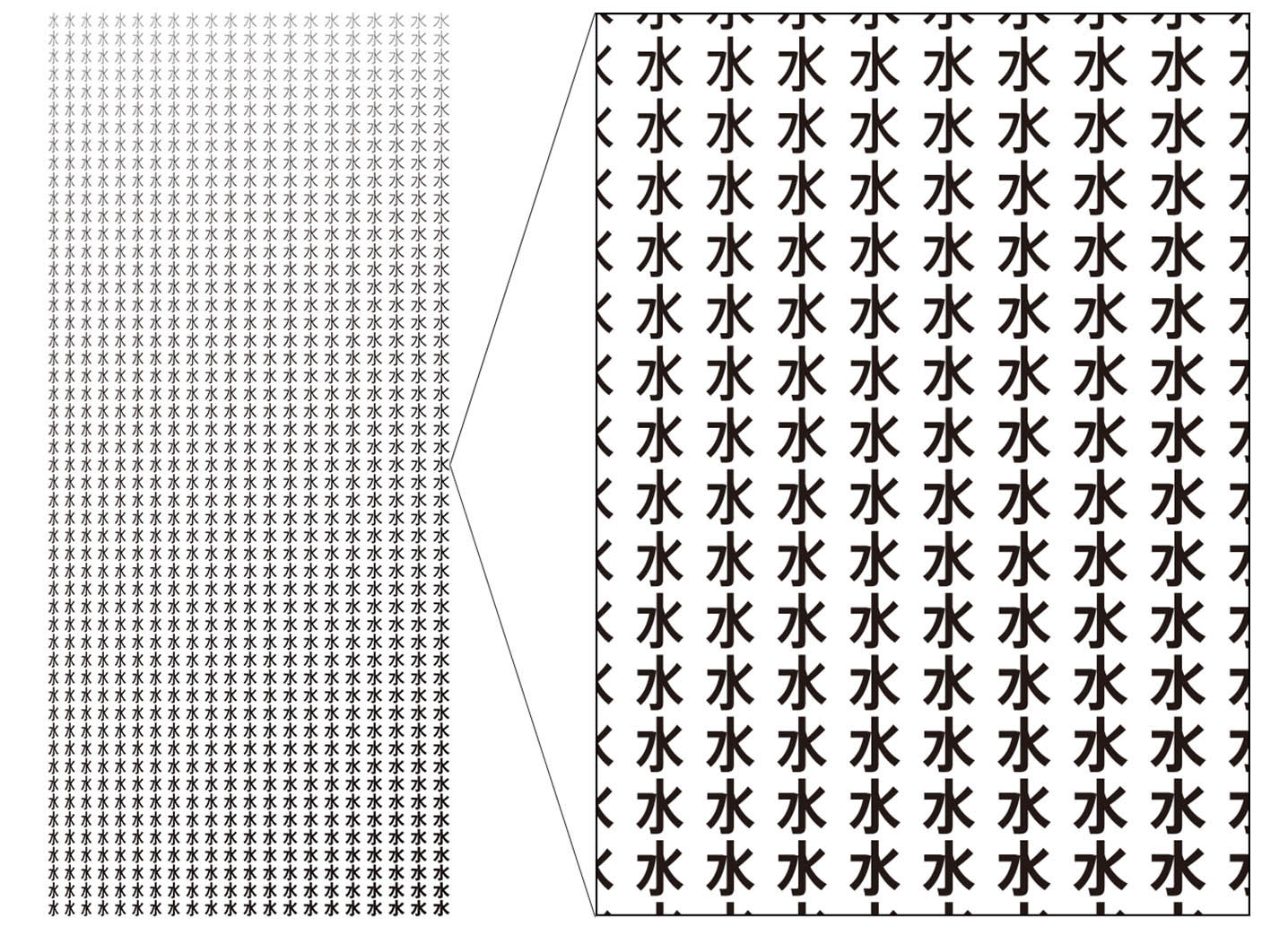
Why AXIS Font works as a corporate font, too
Transform values, arrange environments, support culture, and be rooted in everyday life.
The shape of Type Project’s aspirations.
From the creation of a magazine-dedicated font for the design publication AXIS Magazine, to the production of FitFont with freely combinable weight and contrast options, to its offerings for the City Font Project and of a range of font experimentation tools, Type Project aims to continue with its original approach to development.
Type that raises the value of objects and of people (2)
Why AXIS Font works as a corporate font, too
When AXIS Font came out in 2001, in part due to the fact that it was a media-exclusive font, it had a unique presence that could not be found in other fonts. One couldn’t say for sure whether or not it even resembled other existing typefaces, and it resisted categorization with any other lineage of typefaces. Isao Suzuki’s way of thinking about type design shows why this was the case. “I’ve always felt this way, but I think that one should just start in a natural way, and that it’s good to bring out in a typeface the things one is living and seeing now, the air one breathes, and one’s sense of the spirit of the era one is living in. So, with AXIS Font, it was always important to me that it felt right, and that to my eye it worked in a comfortable way, without any sense of something being out of place. If I can express the ‘contemporary’, and that can be something that connects to environments and visual atmospheres five years from now, or even ten years from now… I have such hopes whenever I am creating a new typeface.”
In AXIS Font, Suzuki gave expression to his sense of the spirit of the times. It is interesting to note that AXIS Font is frequently adopted as a corporate font. One might think that since this font was designed for the specific medium of AXIS Magazine, everything one does with it will end up looking like that magazine, regardless of the medium one is working in. But when looking at actual examples of AXIS Font in use, one is struck by how easily and naturally it seems to fit into each situation. Suzuki’s typeface design philosophy, of having a sense of transparency and neutralness and looking ahead five or ten years in the future, would seem to be consistent with the corporate font way of thinking, which is to choose for long-term use. Suzuki offers the following analysis as to why this is so: “Overwhelmingly, in addition to adopting neutralness as a typeface characteristic, companies were using sans-serif fonts as their corporate fonts. And AXIS Font had seven weights, which was a lot for that time. Moreover, with Condensed and Compressed, we had three character widths available, which is probably what led to AXIS Font being a popular choice for situations with Japanese text used in combination with Latin characters.”
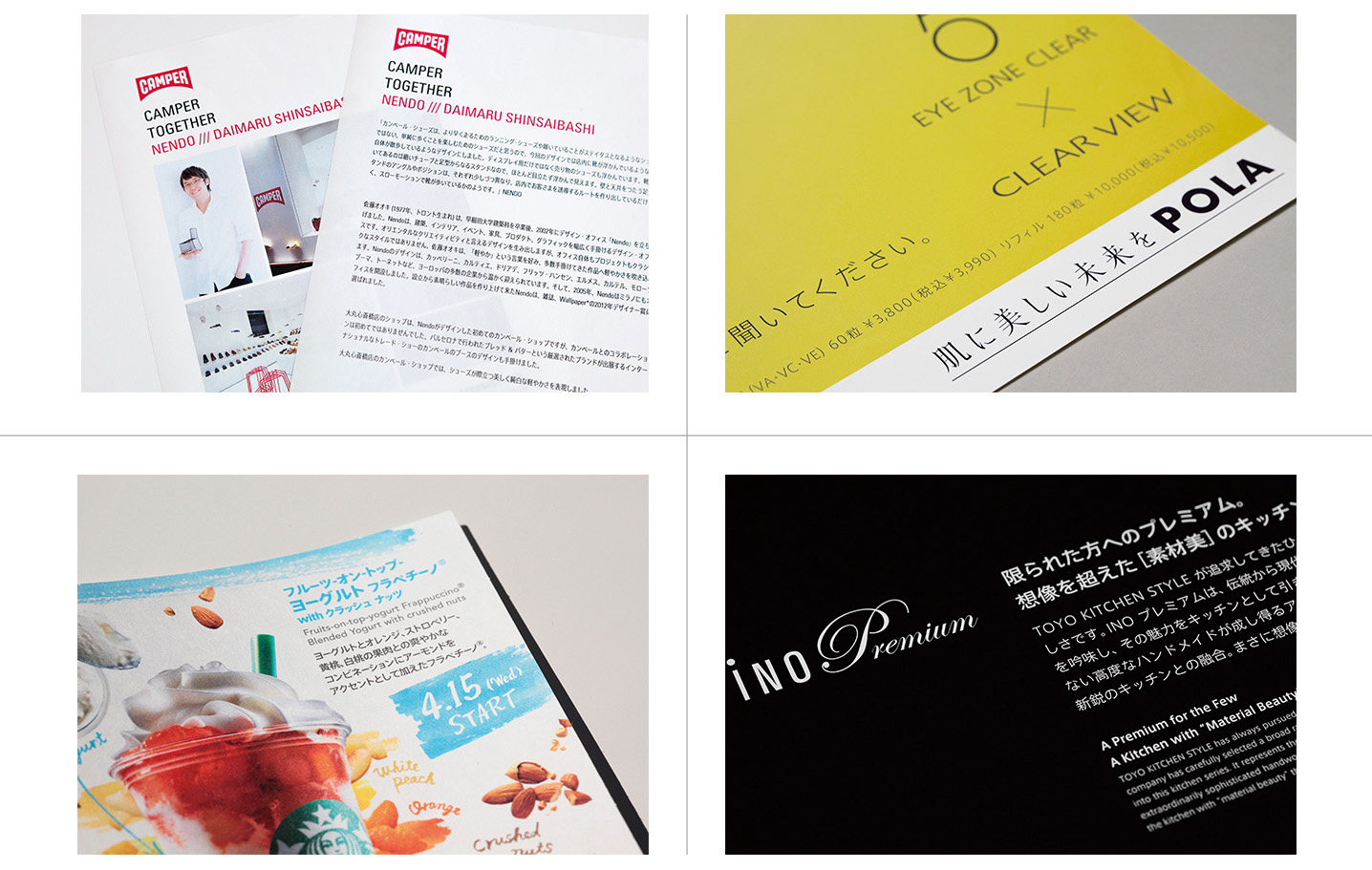
AXIS Font (and any custom fonts that use it as a base) has been adopted by many companies as a corporate font. There are many reasons for this popularity – the neutral design, its well-balanced handling of Japanese and Latin font combinations, and ease of design due to the availability of Condensed and Compressed, to name just a few. But as can be seen from these examples, while AXIS Font is endowed with advanced design qualities, it is a unique creation that also possesses a certain anonymity.
Upper left:Camper
Lower left:Starbucks Coffee
Upper right:POLA
Lower right:TOYO KITCHEN STYLE
FitFont, born from AXIS Font
It has presence, and it doesn’t. Such unusual reasons often come into play when adopting AXIS Font, Suzuki explains, and there are many cases of corporate font use in which requests are made for customization. “With corporate fonts, we used to get a lot of requests from clients who said, ‘AXIS Font is fine, but we want to change it a bit so that it’s different from what other companies have,’ and initially we were handling each request one at a time. Since it seemed likely that the demand for this would continue to grow, we came up with FitFont to provide it as a service.”
Type Project’s FitFont is a service that offers 1,071 variations each for both AXIS Font and TP Mincho (see page 21) by making adjustments of weight and contrast. Provided in combination with Latin fonts from Monotype and Commercial Type, all manner of corporate font needs can be satisfied. This is a service that could only be created by Type Project, a company that allows type designers and type engineers to work closely together. “We always have a lot of discussions between designers and engineers. Because the designers have to understand things, and the engineers have to understand the designers’ requests, too.”
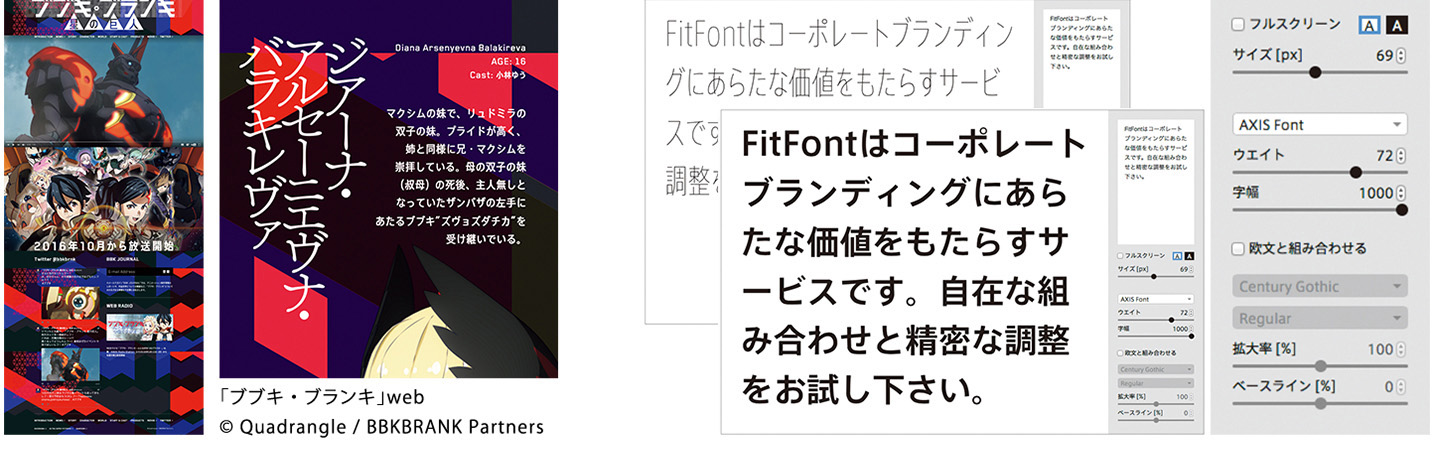
While with AXIS Font, one may select weight and width settings to yield a total lineup of eighteen variations, there are times when more refined levels of thickness and width are desired for corporate fonts. To respond to such needs, Suzuki worked with engineers to develop “FitFont”, which allows for modification of up to 51 levels of thickness and 21 levels of width.
Left: The font set created for BUBUKI/BURANKI incorporated a geometrical Latin font into AXIS FitFont. This combination had a huge impact on Suzuki and made him aware of new possibilities.
Right: On Type Project’s online shop, one can select the “FitFont” item to carry out simulations of altering weight and width (AXIS Font) or contrast (TP Mincho), and one can also purchase fonts with one’s specified settings. Sample text can be changed as desired.
FitFont
The font possibilities opened up by FitFont
Though Suzuki started FitFont in order to respond to the need for corporate fonts, his work sparked a surprising level of interest from other quarters, as well. For example, there was the request that came from Nippon Design Center’s Tomoyuki Arima, to use FitFont for the anime television series BUBUKI/BURANKI, which went on air in January 2016.
“I received an order from Arima, in which he said he wanted to use an AXIS FitFont, because it would fit perfectly with the Latin font he had chosen, which had characters with a slightly narrow, mechanical feel. In contrast to the rather geometrical Latin font, the Japanese font set in AXIS Font is neutral and human-feeling. Normally, one would have expected it to be a strange combination, but once the weight and width are adjusted, it looks very nice. I’ve been doing this work for a long time, and I’ve always tried to keep an open mind and not treat such things as taboo, but there I was with blinders on. Of course, it’s always a good idea to combine typefaces that have qualities that go together – but this project made me realize that sometimes they can be different, and if the weight and width are just right, it’s actually even better to have a bit of a feeling of something being out of place. BUBUKI/BURANKI was a fantastic learning experience for me. So, I’m very grateful to Arima for that.”
The fruit borne from the “trunk” that is AXIS Font
“BUBUKI/BURANKI is really an excellent example of this. Without me even noticing it, the typeface came to accommodate a range far beyond what I had originally intended. I think this is one of the things that’s great about working with this technology. I realized that by bringing the classical forms of the letters together with the technology, it was still possible to achieve such things when attempting to create a really new look.” In this way, FitFont continues to broaden the “main trunk” of Type Project that is AXIS Font, and to grow many branches from that “trunk” and bear all manner of fruit.